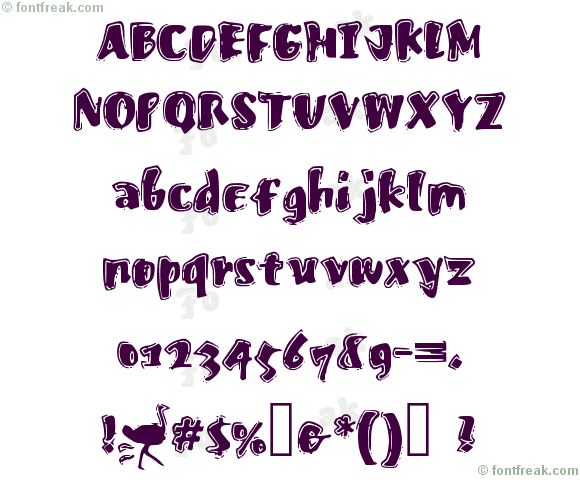
FastOstrich
FastOstrich, designed by Leonard Posavec, is a unique display font that captures attention with its quirky and playful style. As a part of the freeware family, this font stands out for its distinct character and informal appearance, making it ideal for various creative applications. The font features a bold stroke weight with a slightly uneven finish, giving it a hand-crafted feel that resonates with casual and friendly designs. The spacing between the letters is generous, enhancing readability while maintaining a lively spirit, making it perfect for projects that require a touch of personality.
FastOstrich is particularly suited for use cases such as children's book covers, playful branding for cafes, eye-catching social media graphics, and vibrant event posters. Its whimsical nature makes it a fantastic choice for designers looking to attract a younger audience or those aiming for a fun, approachable vibe. Small business owners and content creators will find this font especially useful when crafting memorable marketing materials that stand out in a crowded marketplace.
The target audience for FastOstrich includes graphic designers, small business owners, and content creators who are seeking a font that embodies creativity and charm. Its unique style allows for versatile applications, appealing to those who want their work to reflect a sense of joy and lightheartedness.
What truly sets the FastOstrich font apart is its ability to convey a sense of fun without compromising on legibility. Whether you’re designing a flyer for a local event or creating a logo for a start-up, this font adds a distinctive flair that ensures your message is not just seen but remembered. For those eager to explore its potential, a FastOstrich font free download is readily available, inviting you to incorporate its whimsical character into your next project.